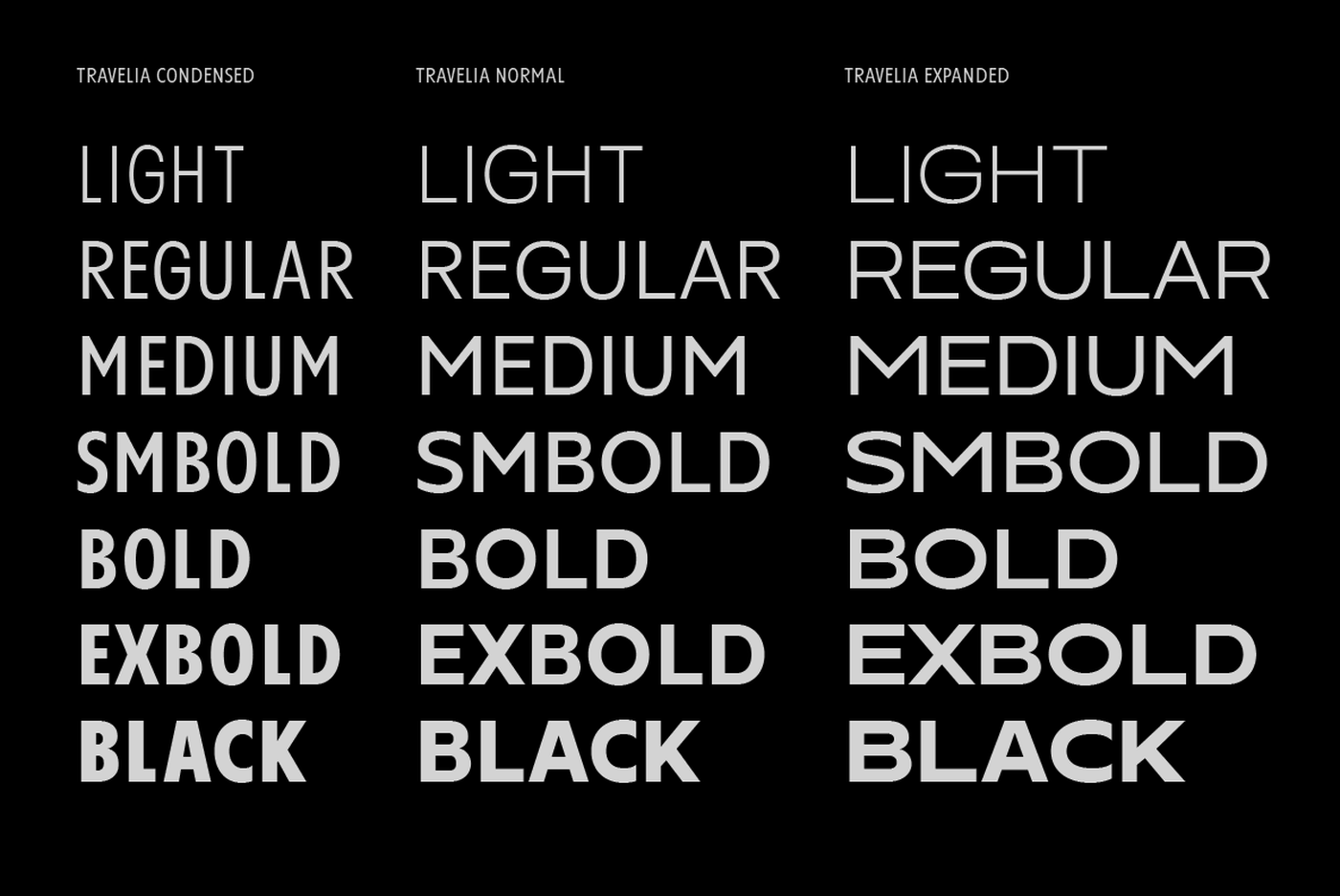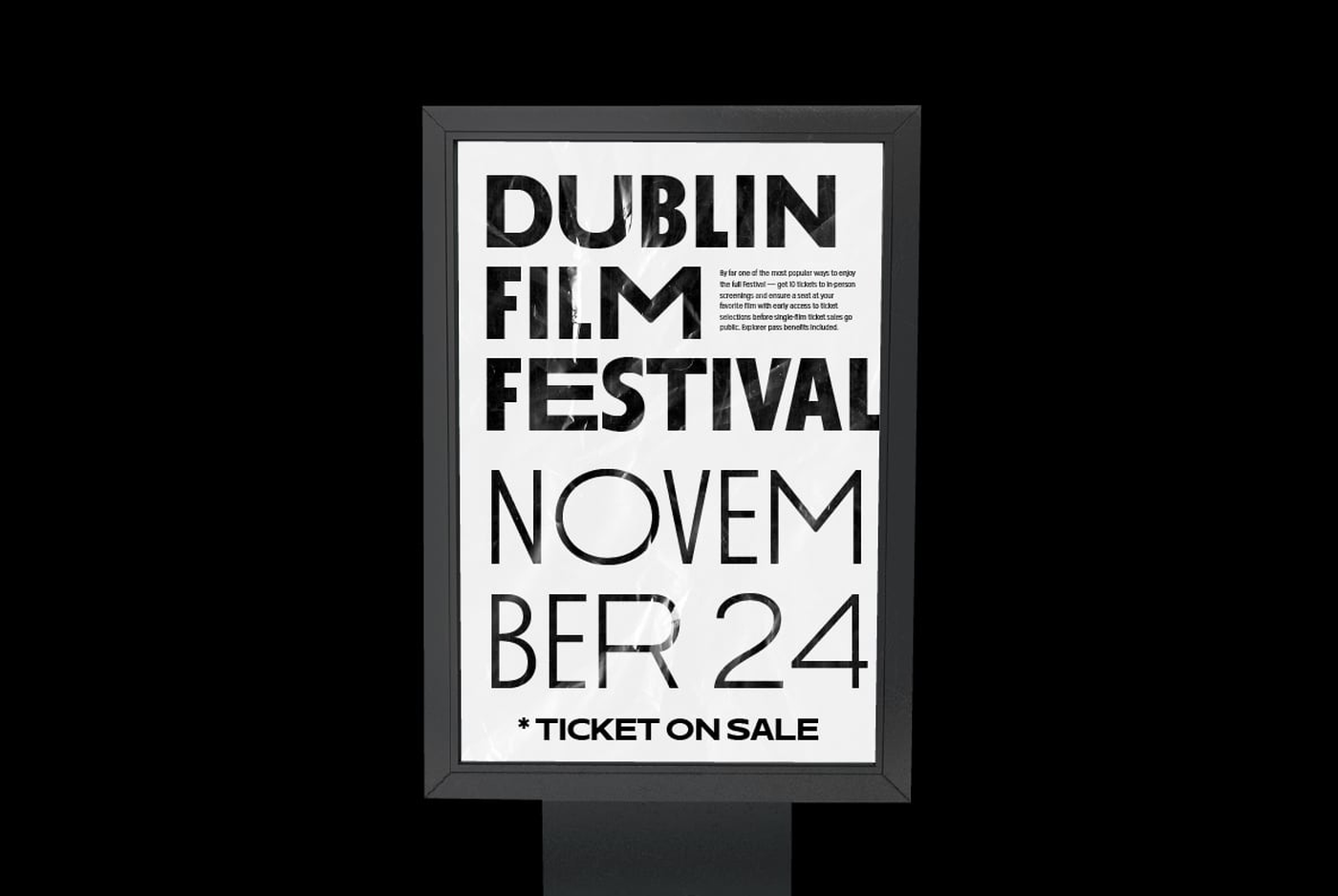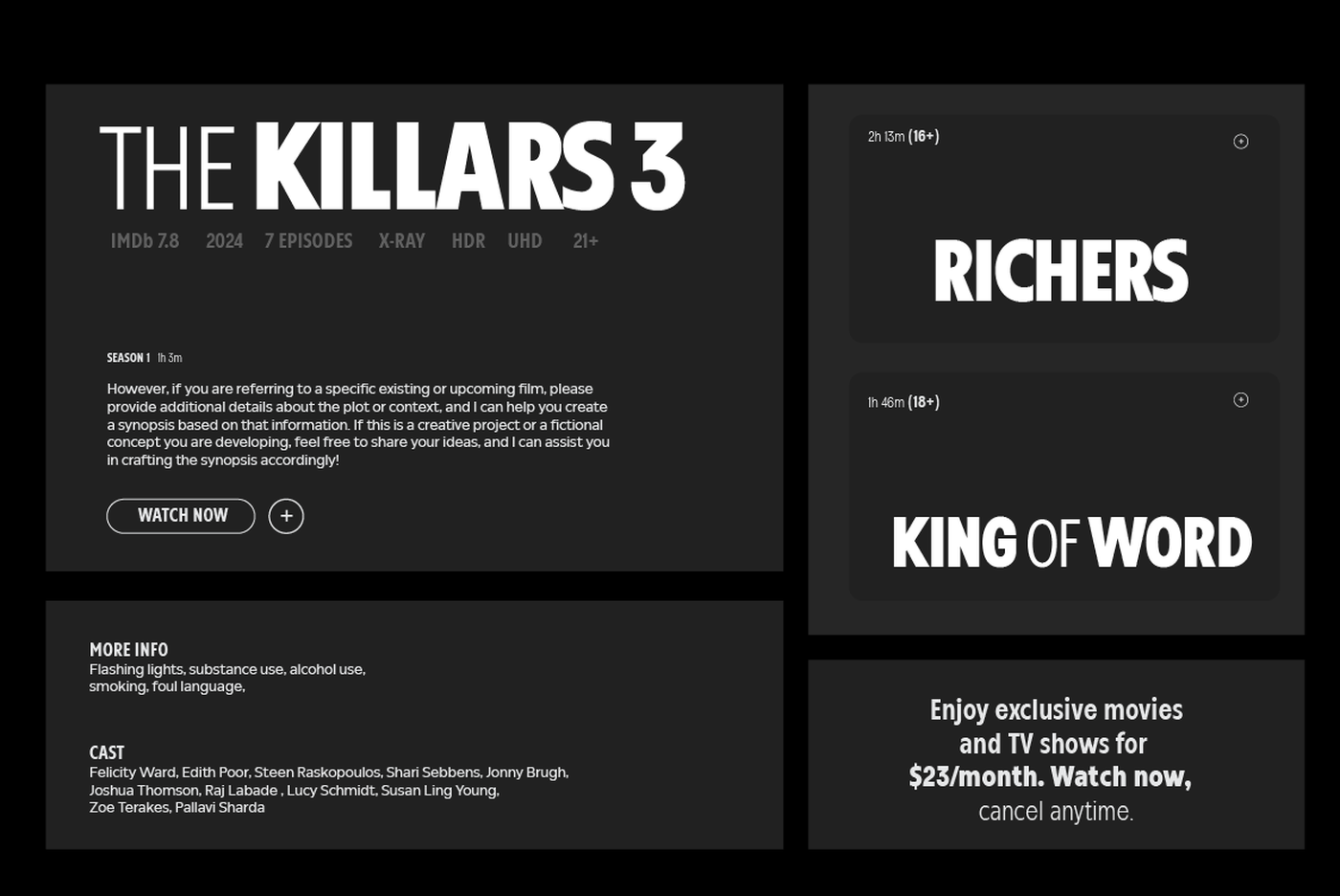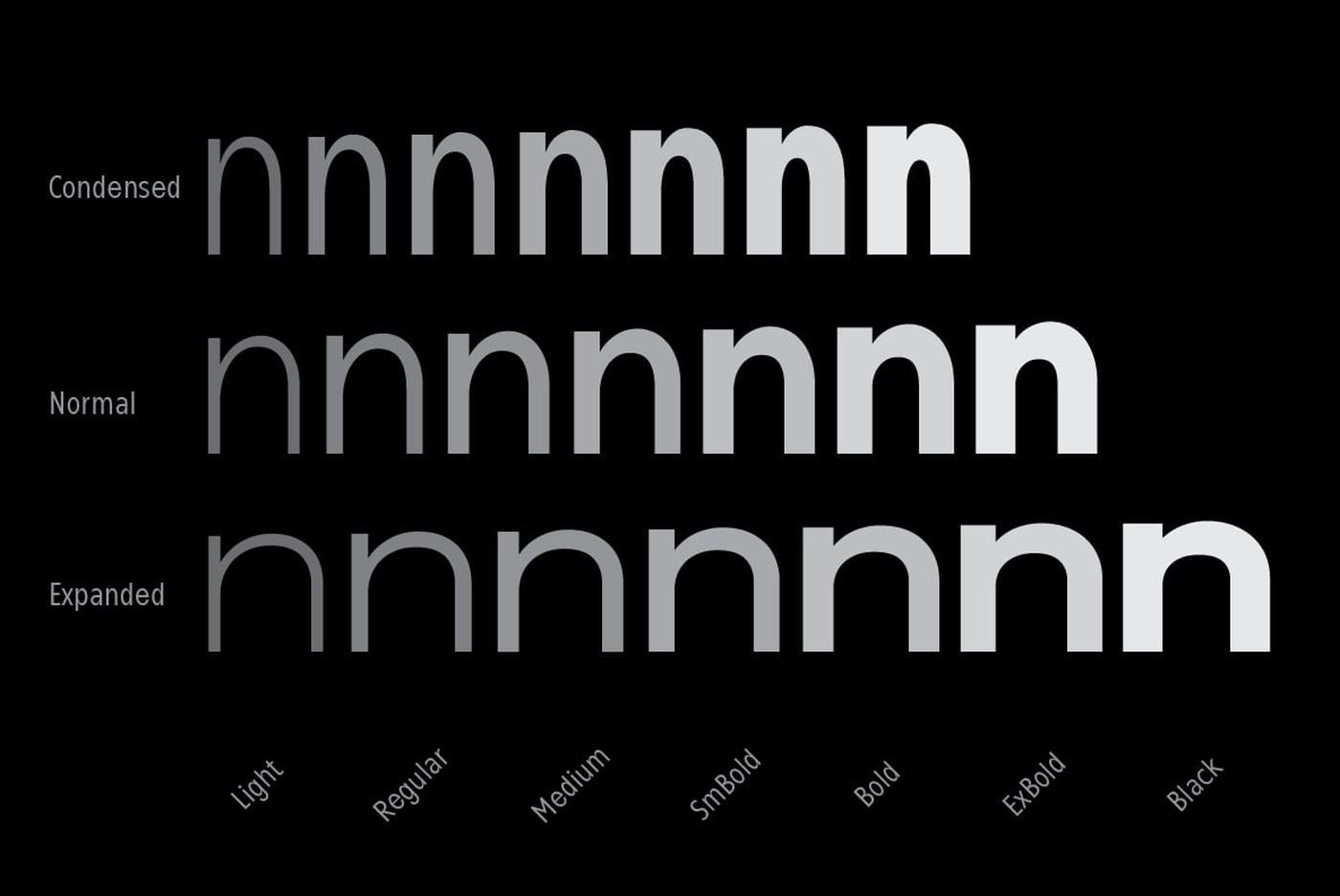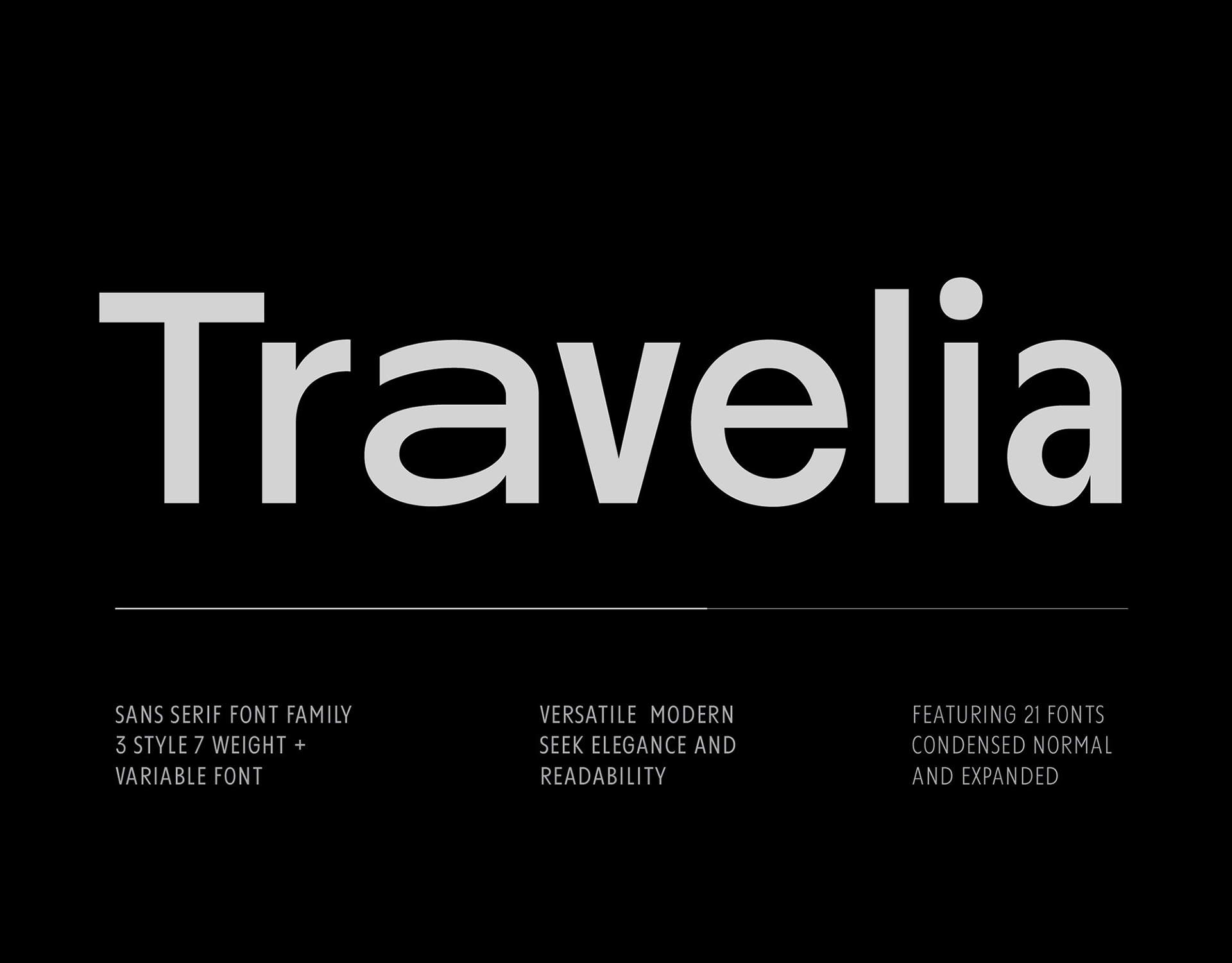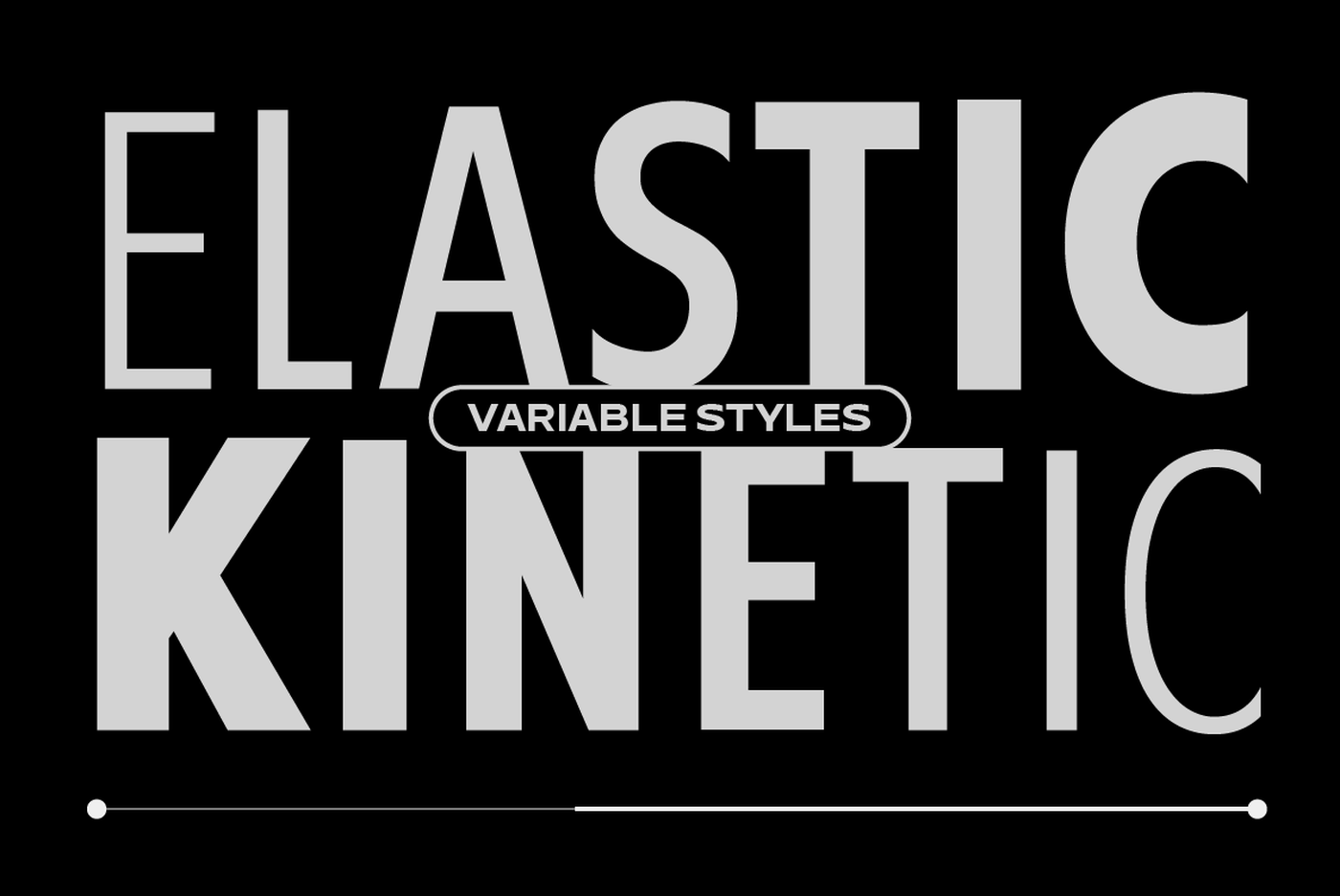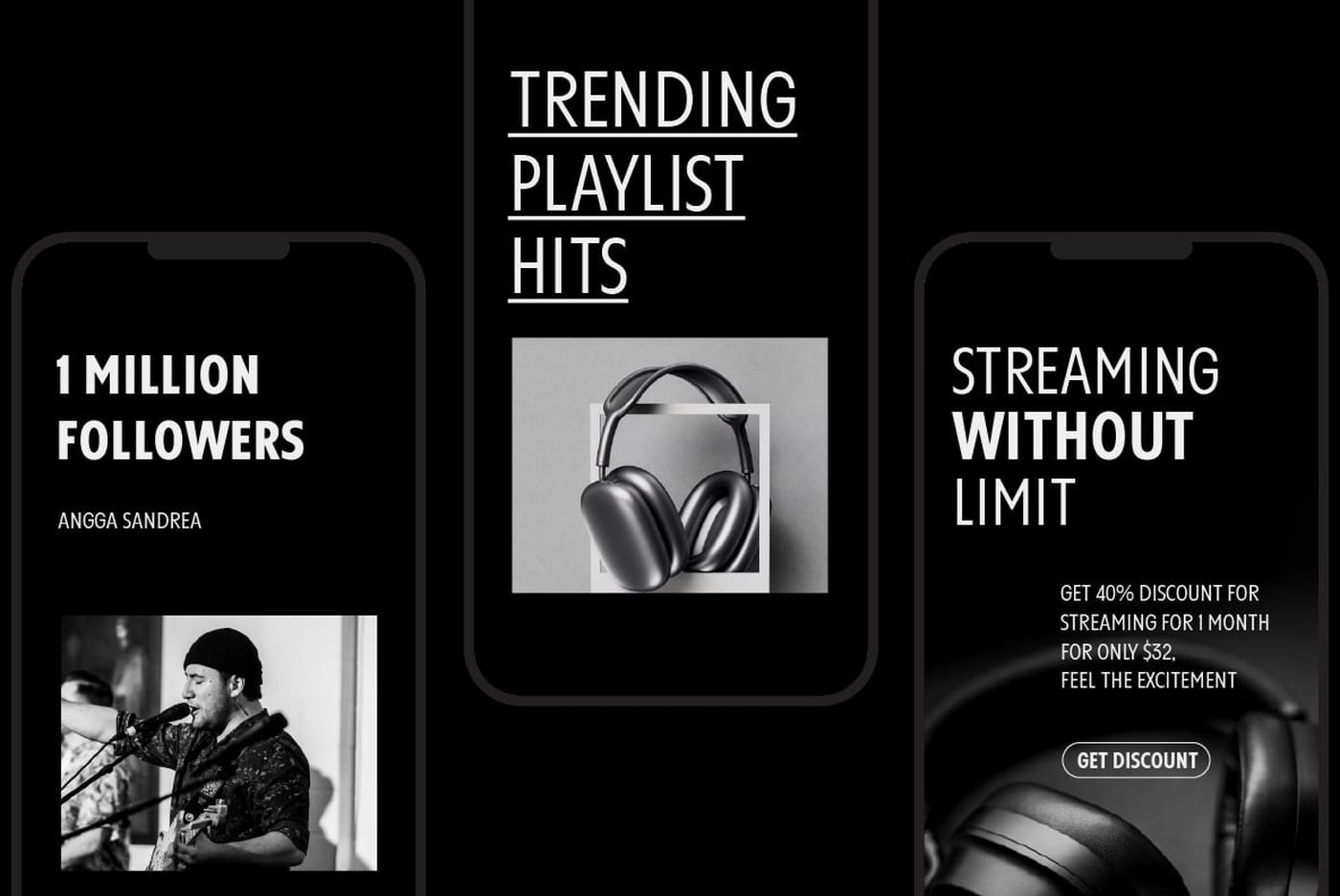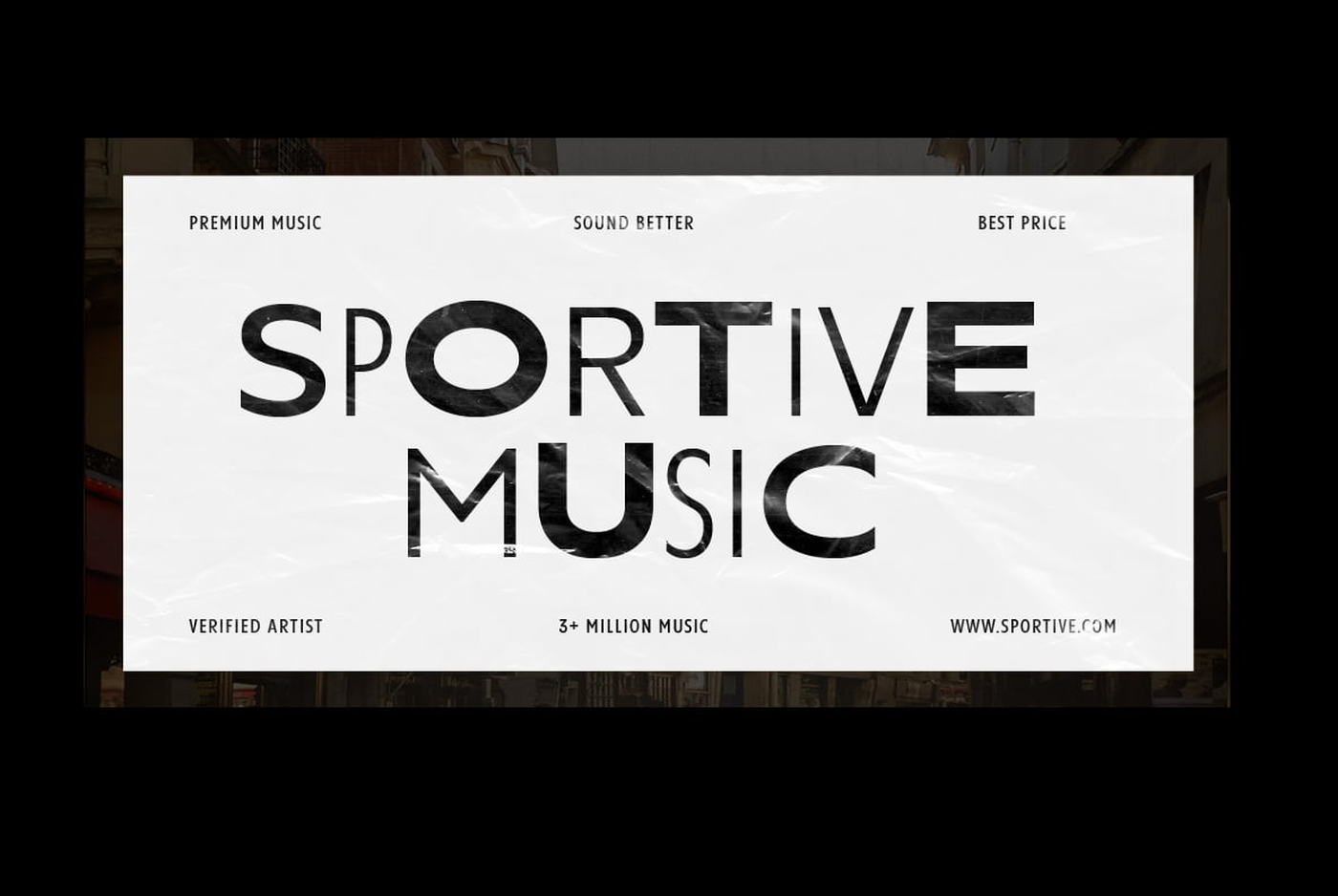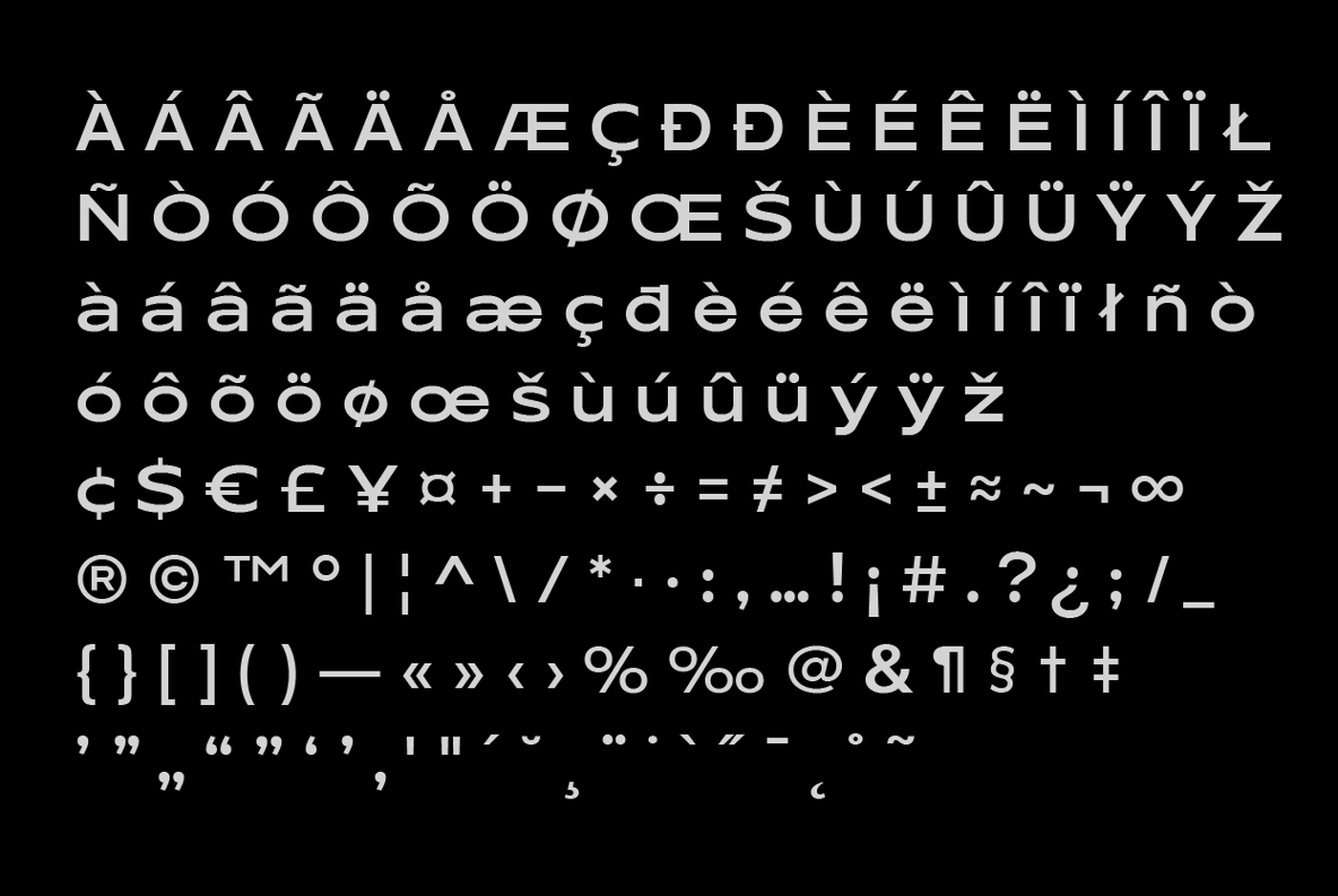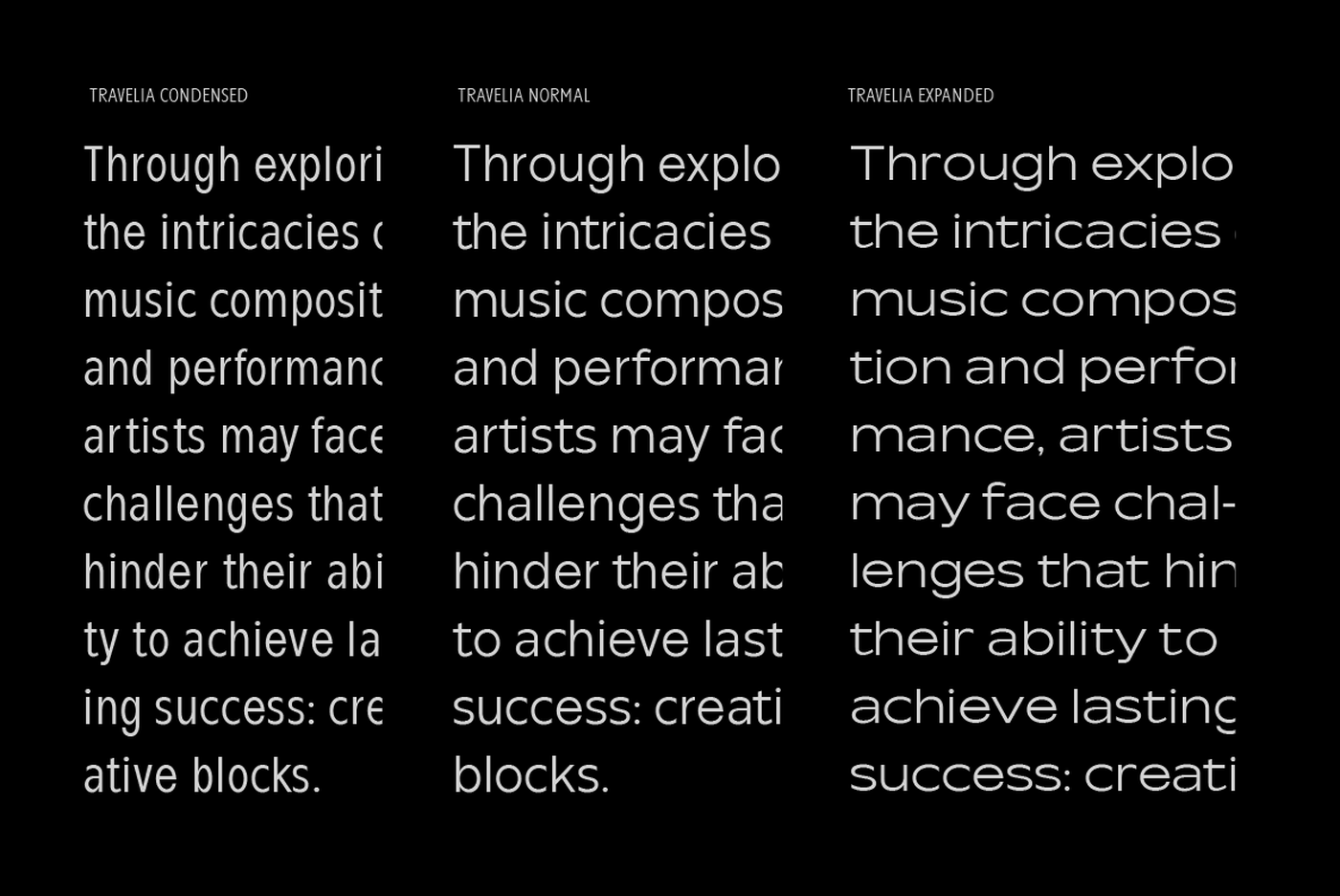
Travelia - Sans Serif Font Family
Travelia Sans Serif Font Family is a versatile and modern collection designed for those who seek elegance and readability. Featuring 21 fonts, it offers 3 distinct styles—Condensed, Normal, and Expanded—each carefully crafted to suit various design needs. With 7 weights ranging from Light to Black, Travelia provides endless possibilities for creative projects, whether it's for branding, editorial design, web development, or advertising.